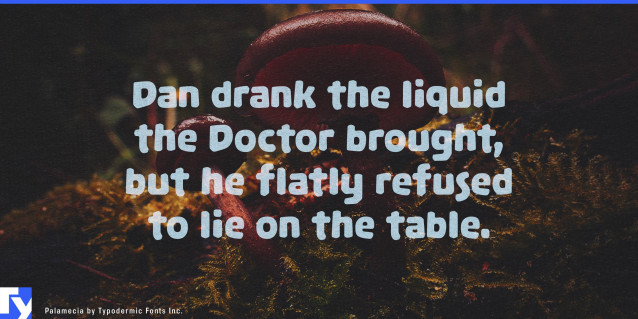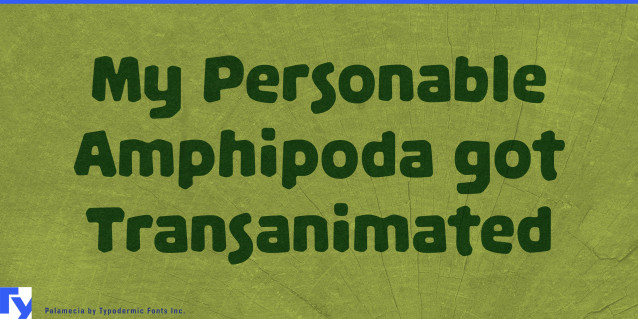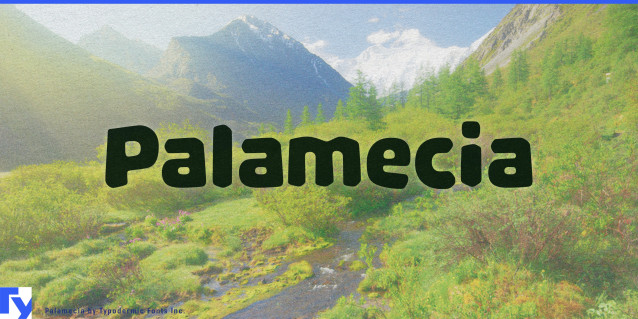
Palamecia Titling is a bold all-caps display face whose blocky forms retain the integrity of screen and pixel construction. Its playful strength suits game titles, toy packaging, esports, children’s media, posters, streaming graphics, events, and product names that need immediate impact without a hostile edge.